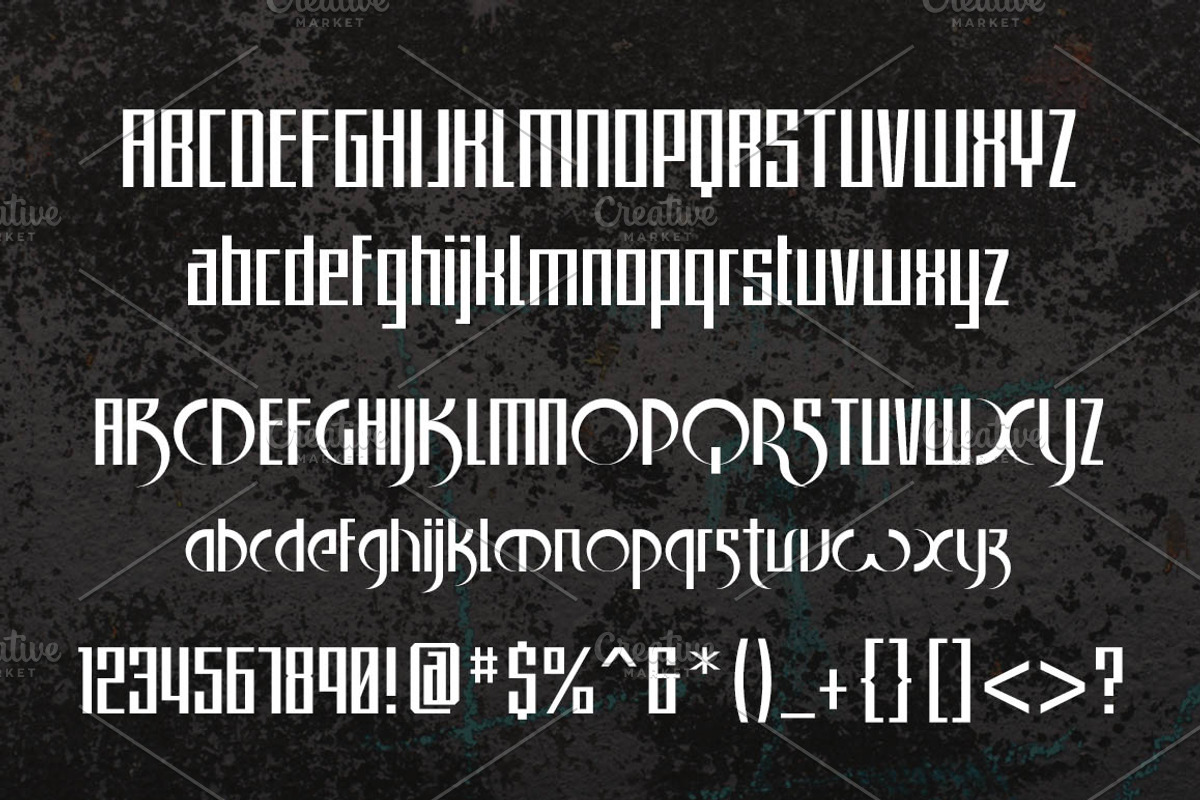
Sickle Blade Typeface
Sickle Blade Typeface by alphadesign is a font selected for branding, posters, packaging, typography.
- Sickle Blade Font creative ideas comes from the shape of a sickle, fonts include both normal and alternate style (sickle-shaped) suitable fo
Sickle Blade Typeface by alphadesign fits naturally into Branding, posters, packaging, typography.